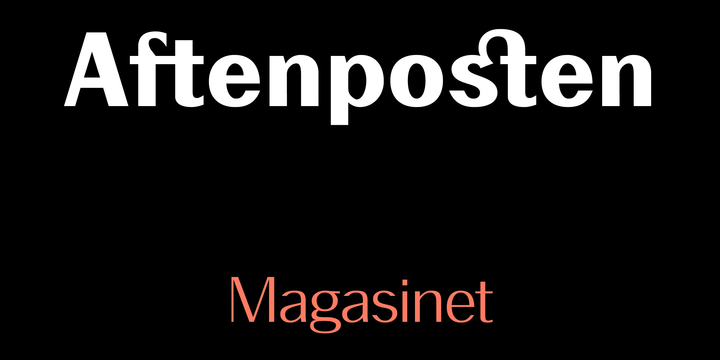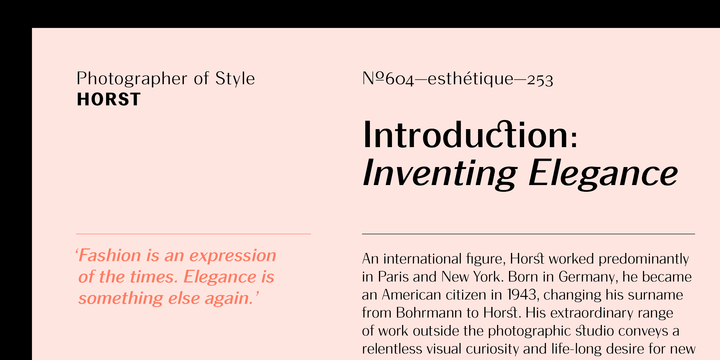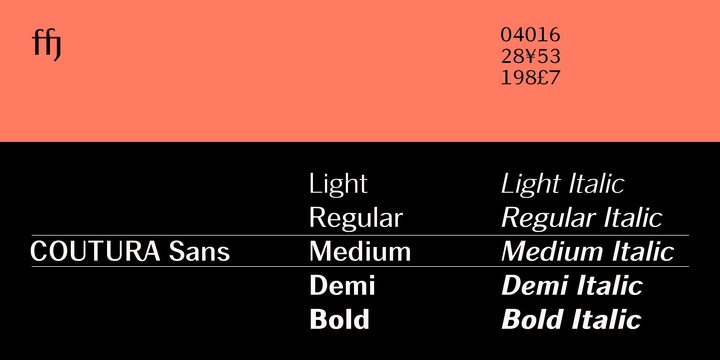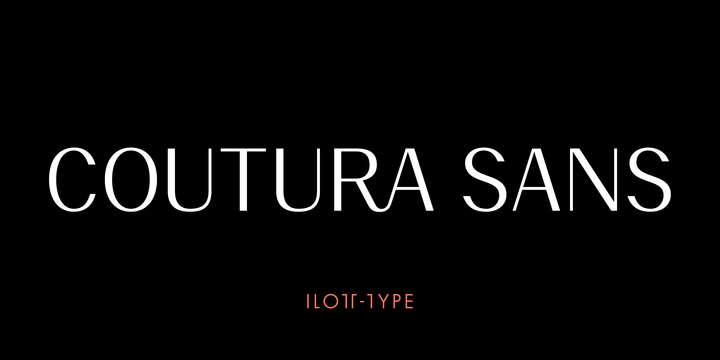
Inspired by the elegance of Herman Zapfs designs crossed with the readability of early 20th century Gothic fonts by Morris Fuller Benton, COUTURA is a sans-serif with a visible stroke contrast and a humanist tone of voice.
The large x-height seen in fonts like News Gothic and Palatino increases legibility and condensed proportions give excellent readability making it perfect for newspaper and magazine publishing.
A typeface that can serve for both body text and titling the uppercase excels for headlines and renders beautiful brand names when tracked out.
More It sets well with both a serif or sans serif complement and has various open type features including: 12 standard ligatures, 3 discretionary ligatures, tabular figures, old style figures as well as European accents.